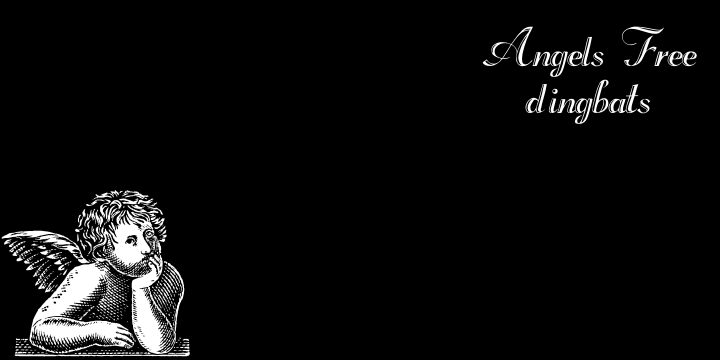
Angels by Paulo W. is a free antique symbol font featuring cherubs, winged figures, and devotional scenes. The drawings shift from fine line work to solid silhouettes. Old-engraving detail gives the figures expressive poses and lively gestures.
It can turn an event invitation into an illustrated tableau, with antique imagery suited to seasonal cards and historical publishing. Rather than serving as neutral lettering, the symbols can become decorative seals, emblems, or small narrative pictures.